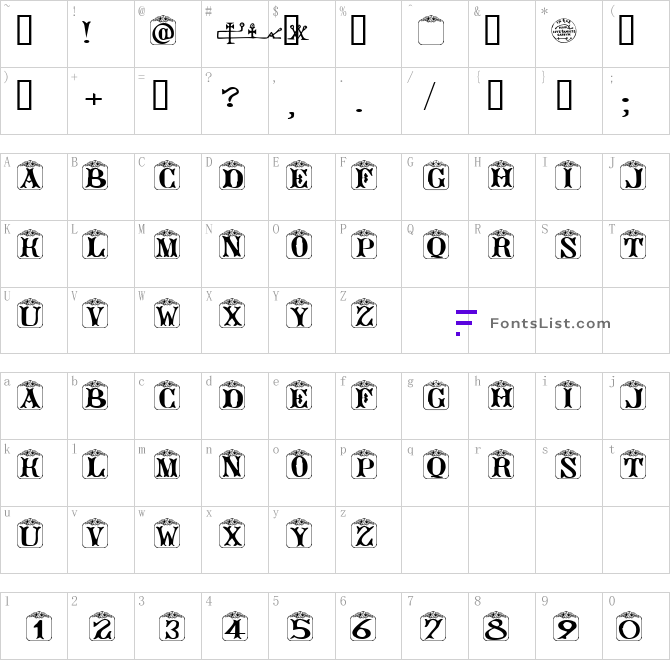
- Font Name:Angelots (Unregistered)
Angelots-Unregistered-.ttf is a very beautiful artistic font, Angelots-Unregistered-.ttf is widely used in the design and printing of various books and pictures,Angelots-Unregistered-.ttf has a strong visual impact,Angelots-Unregistered-.ttf is a commonly used font in newspapers, magazines and books, and is used in posters, e-commerce Poster design, store design, logo design, font design and other fields.Angelots-Unregistered-.